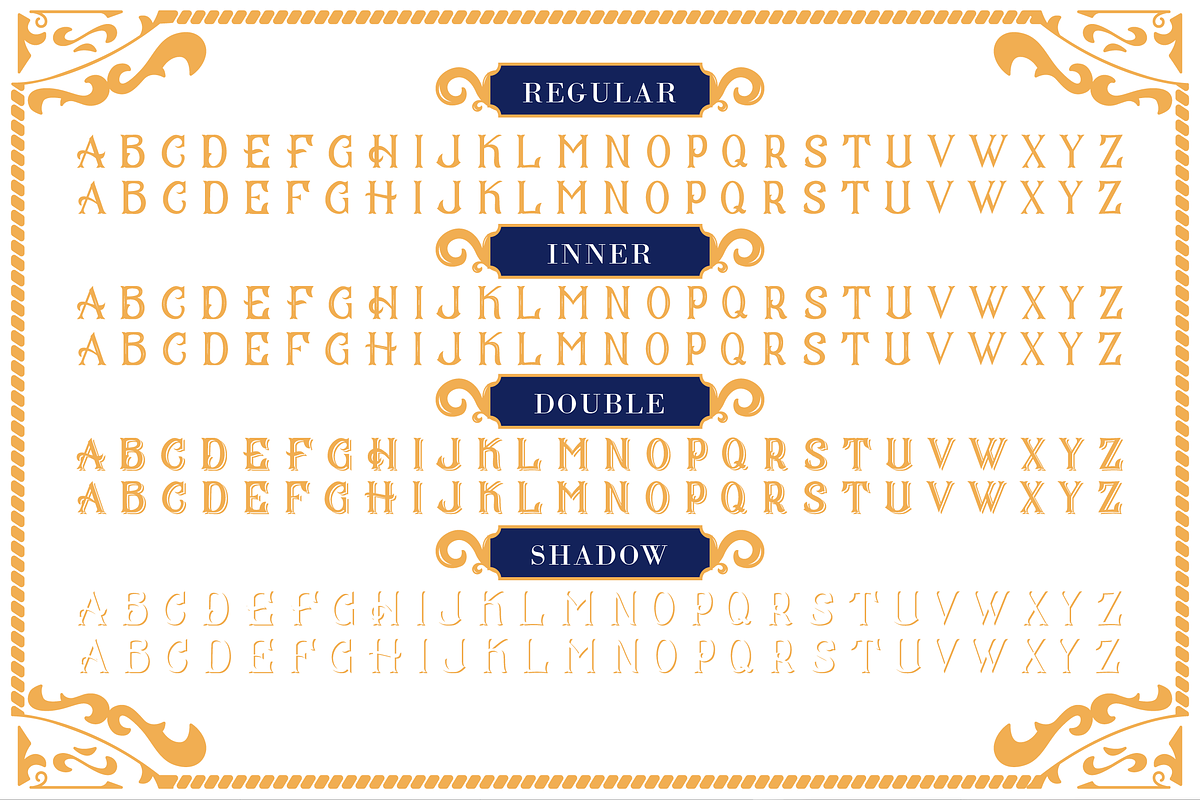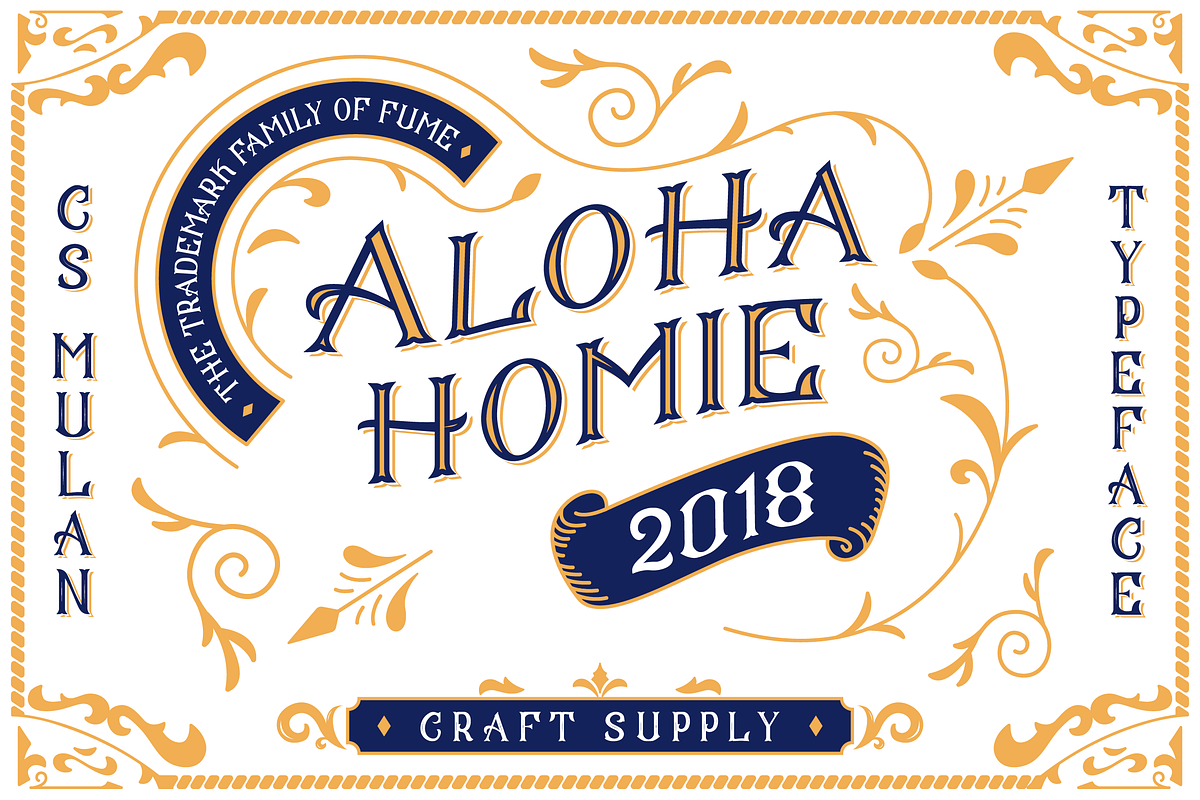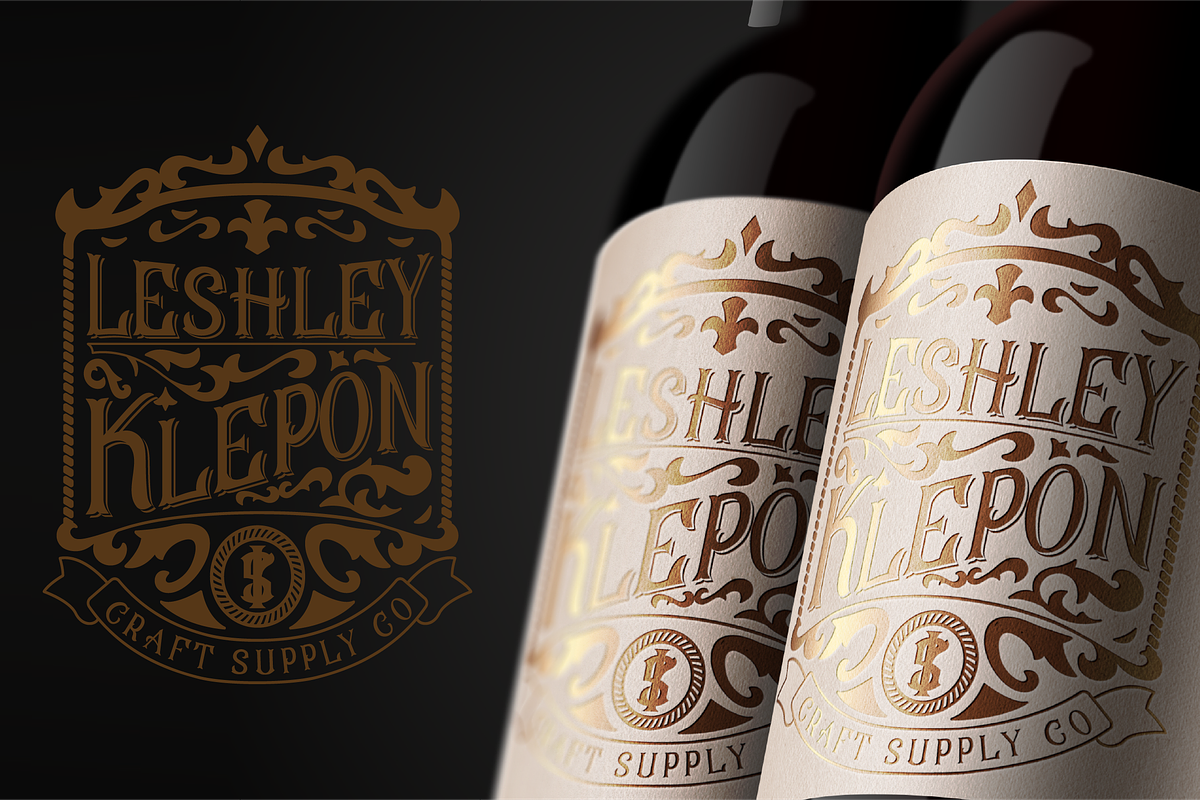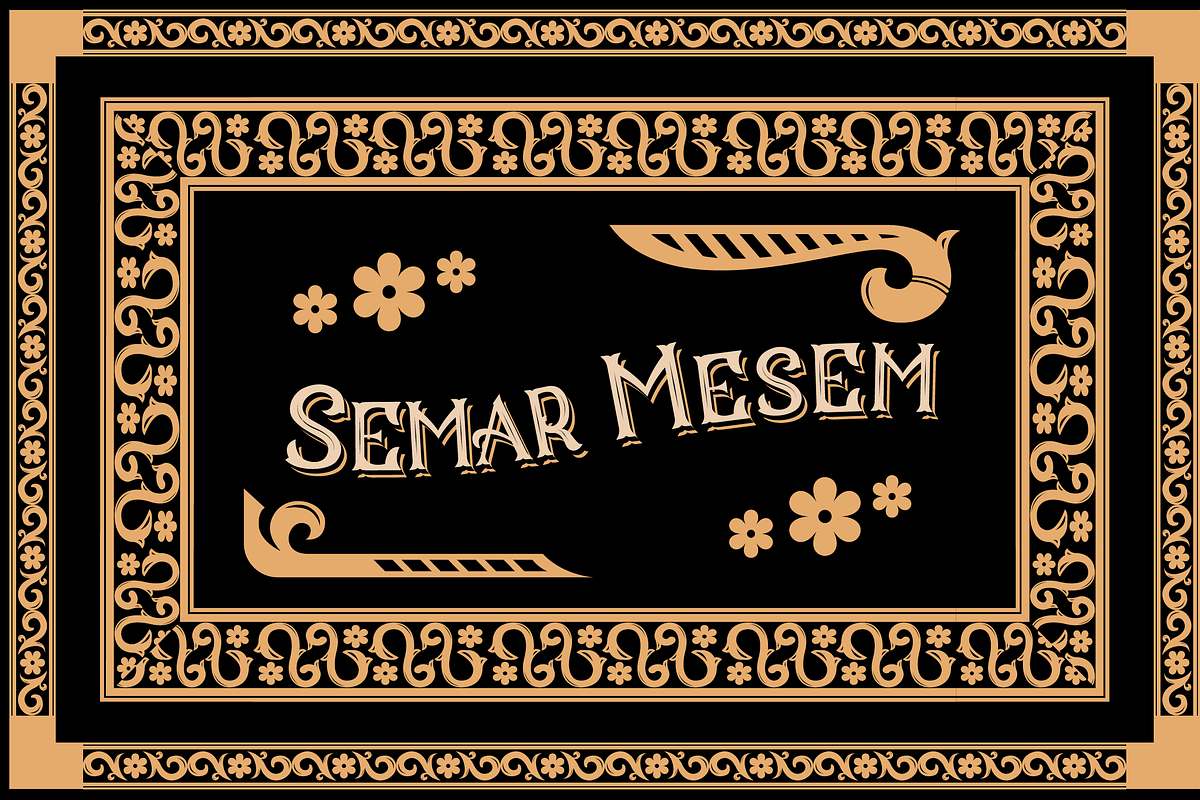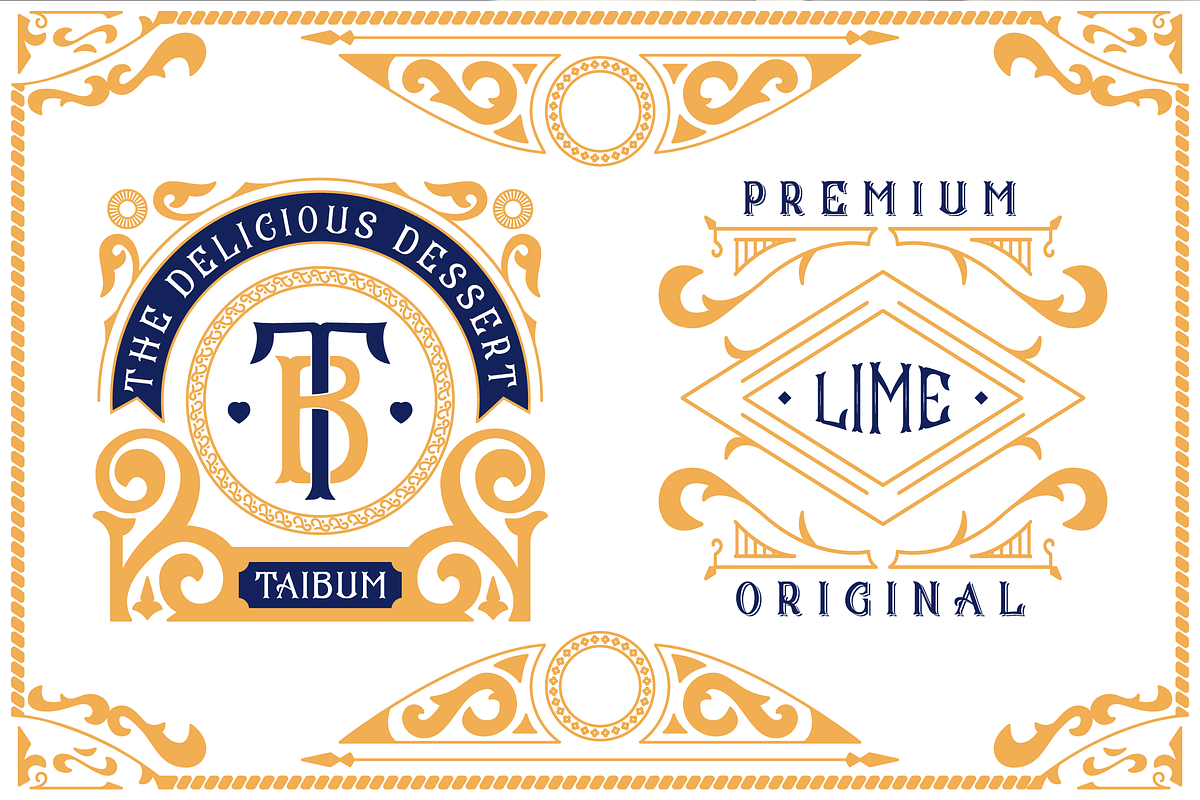
CS Mulan Font + Ornaments
Introducing CS Mulan includes 4 Style Fonts. It can be used to create almost all types of design projects like print materials, Logos, Vintage Text, Labels and manay more.
You want to make a greeting card or a package design, or even a brand identity, craft design, any DIY project, book title, wedding font, pop vintage design, retro design or any purpose to make your art / design project look pretty and trendy? Feel free to play with all the patterns and shape!
- CS Mulan Regular
- CS Mulan Inner
- CS Mulan Double
- CS Mulan Shadow
Why CS Mulan Font + Ornaments is worth a look
CS Mulan Font + Ornaments by Craft Supply Co. fits naturally into Branding, posters, packaging, typography.